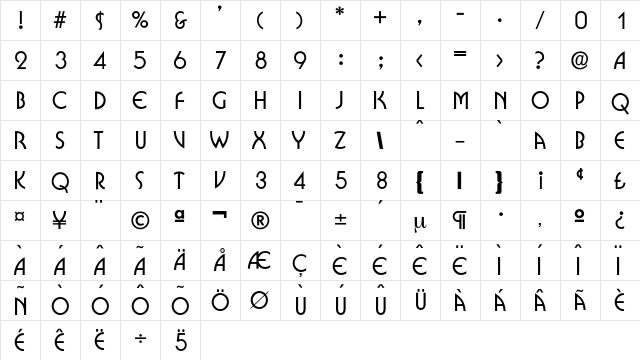
Epiphon Regular
Design Context for Epiphon Typeface
Epiphon is a composed and adaptable typeface that performs quietly and consistently across a wide range of design contexts.